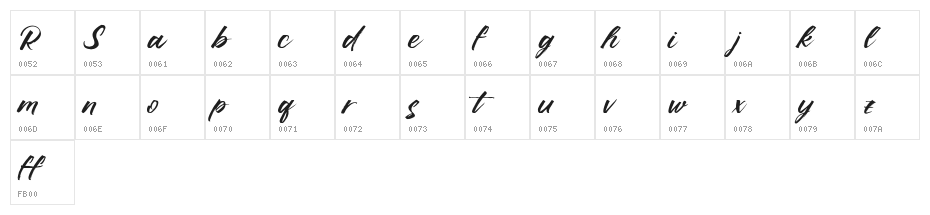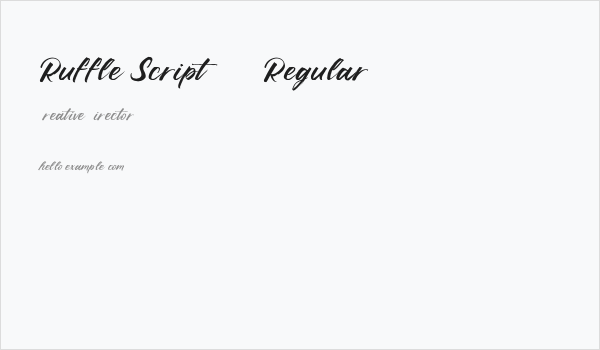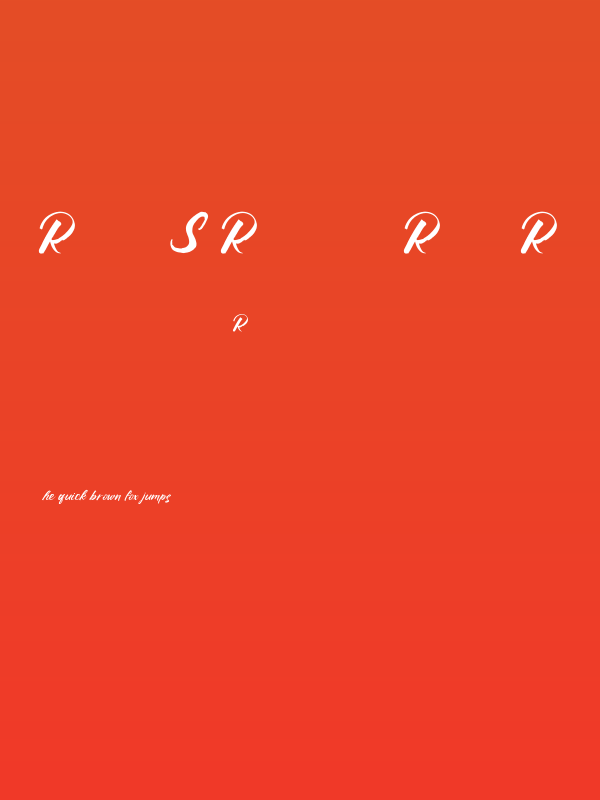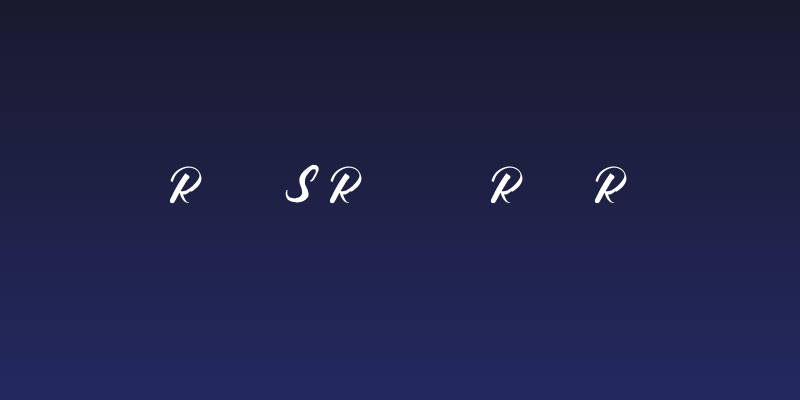
Ruffle Script DEMO Regular Font
Ruffle Script DEMO Regular Description
This font features a dynamic and expressive script style, characterized by its fluid, brush-like strokes and elegant curves. The letters are connected in a flowing manner, giving it a handwritten appearance that is both artistic and sophisticated. The uppercase letters are bold and prominent, while the lowercase letters maintain a consistent flow, enhancing readability. The overall design is modern yet retains a classic charm, making it versatile for various design needs.
| Use Case | Logos, Headlines, Invitations |
| Proposed Projects | Ideal for wedding invitations, greeting cards, branding, and logo design where a personal, artistic touch is desired. |